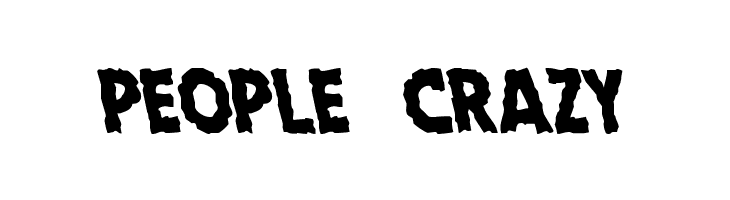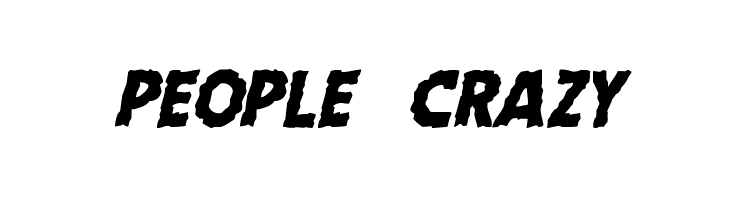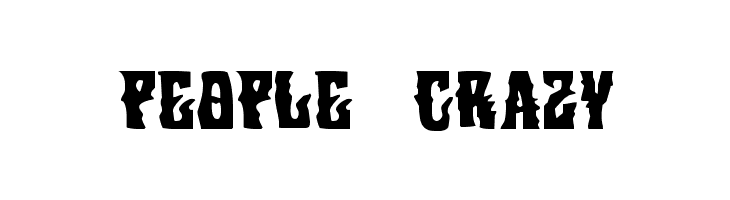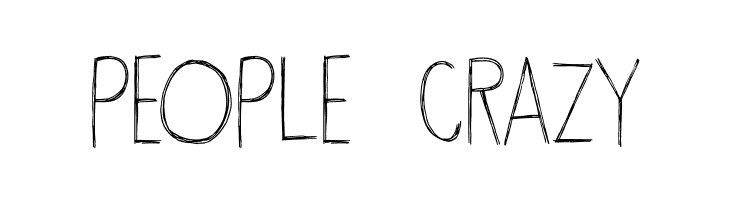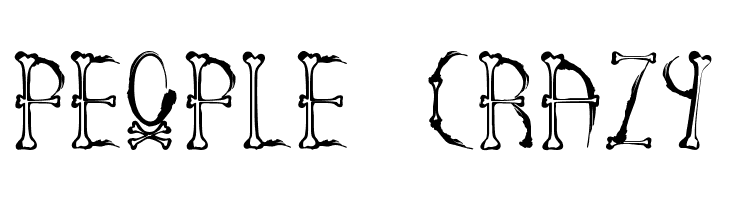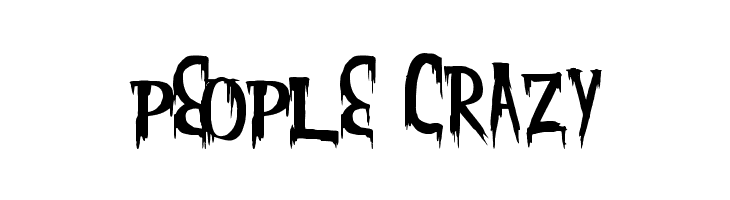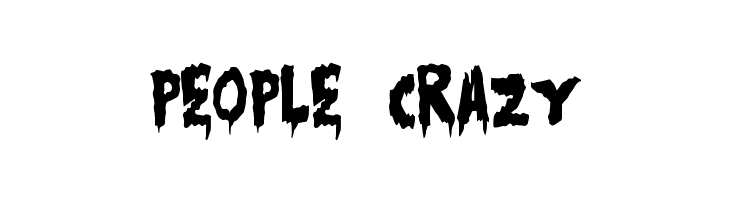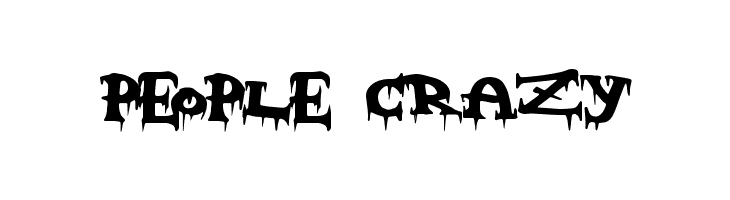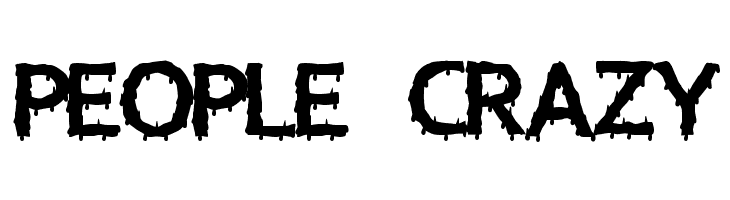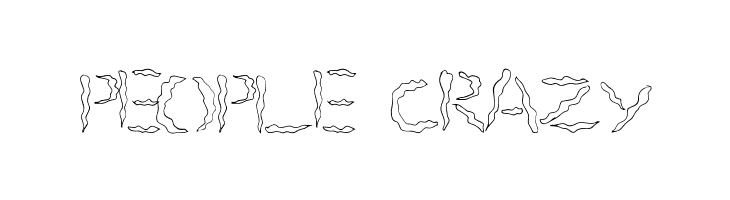
A bold, jagged font with an eerie, unsettling style ideal for horror themes.
A bold, jagged, and italicized font perfect for spooky themes.
A bold, jagged font with a mystical and eerie style.
A bone-inspired, eerie font with sharp, elongated strokes.
A dramatic, jagged font with a distressed, eerie appearance.
A bold, jagged font with an eerie, horror-themed design.
A bold, dripping font perfect for spooky and eerie designs.
A jagged, spooky font with an eerie, torn-paper appearance.
A horror-themed font with a dripping, eerie design.
An eerie, wavy stencil font perfect for spooky designs.
A dripping, eerie font ideal for horror-themed designs.
A bold, irregular font with a dripping, eerie design perfect for horror themes.
A bold, jagged font with a horror-themed, distressed appearance.
A bold, dripping font with a playful, spooky aesthetic.
A distressed, grunge-style font with a textured, decayed appearance.
A bold, jagged font with a horror-inspired, dripping effect.
A bold, distressed font with a grungy, horror-themed aesthetic.
A whimsical, hand-drawn font with elongated, irregular strokes and a playful, edgy vibe.
A bold, jagged font with an eerie, hand-drawn style perfect for spooky themes.
A bold, distressed font with an eerie, spooky vibe.
A bold, distressed font with an eroded, organic appearance.
A dripping, eerie font perfect for horror themes.
A bold, shadowed font with a distressed, eerie style, perfect for horror themes.
A wavy, distorted font perfect for spooky or eerie themes.
A bold, jagged font with an eerie, hand-carved appearance.
A condensed, eerie font with irregular, jagged letterforms perfect for horror themes.
A bold, jagged, and eerie font with a slanted, horror-inspired style.
A bold, rugged font with a distressed, eerie appearance.
A bold, jagged font with an eerie, hand-drawn style perfect for horror themes.
A dripping, eerie font perfect for horror-themed designs.
A bold, dripping font with a playful and eerie style.